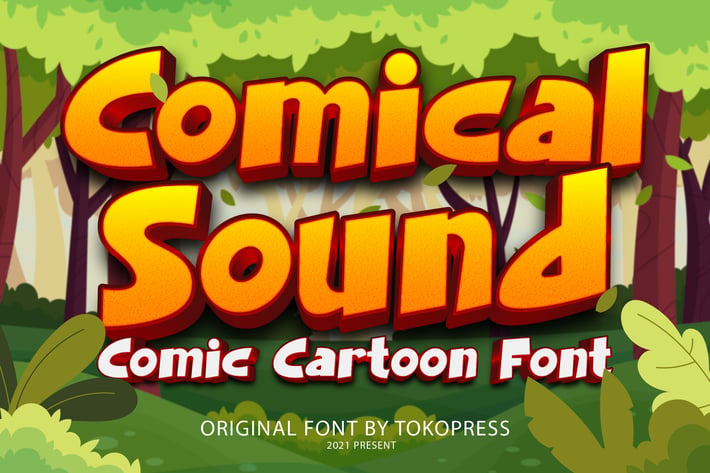
Comical Sound - Children Font
“Comical Sound” is a cartoon-style display typeface with bold curves, joyful rhythm, and expressive bounce – designed to bring fun energy to any kid-friendly visual project. Its vibrant structure, featuring rounded edges and a plump form, creates an engaging presence ideal for children's media and playful branding. Inspired by classic comic books and animated visuals, this font sets the tone for storytelling, laughter, and creative adventures.
With its bold, eye-popping presence and high readability, Comical Sound is perfect for fun headlines, comic covers, YouTube thumbnails, and educational materials. Its bouncy baseline and exaggerated curves reflect a youthful spirit with broad design flexibility.
Whether you're designing a poster for a school play, branding a kids’ game app, or launching a playful birthday party invite, Comical Sound captures attention with childlike wonder and comic clarity. Its high-impact letterforms and bubbly vibe make it the go-to choice for illustrators, content creators, and educators aiming for light-hearted communication. It’s built to deliver smiles while ensuring strong visual hierarchy in busy layouts.
Key Features
Designed for standout storytelling :
- Bold comic display style with exaggerated round shapes
- Great for children’s content, party invites, and playful digital products
- Easy to read and attention-grabbing at both large and small sizes
Why designers love it:
- Brings instant energy to posters, branding, book covers, and games
- Highly expressive and joyful visual voice
- Perfect for themes involving humor, adventure, or childhood nostalgia